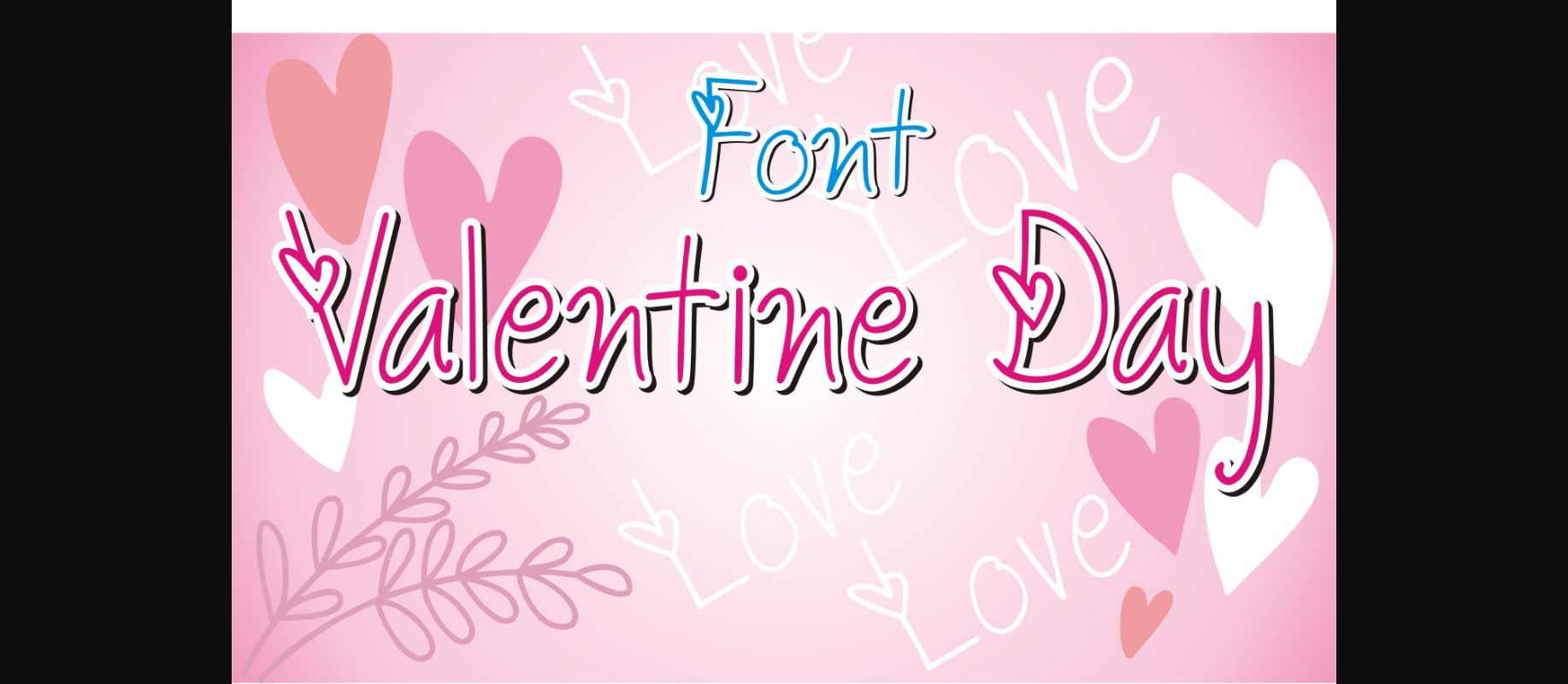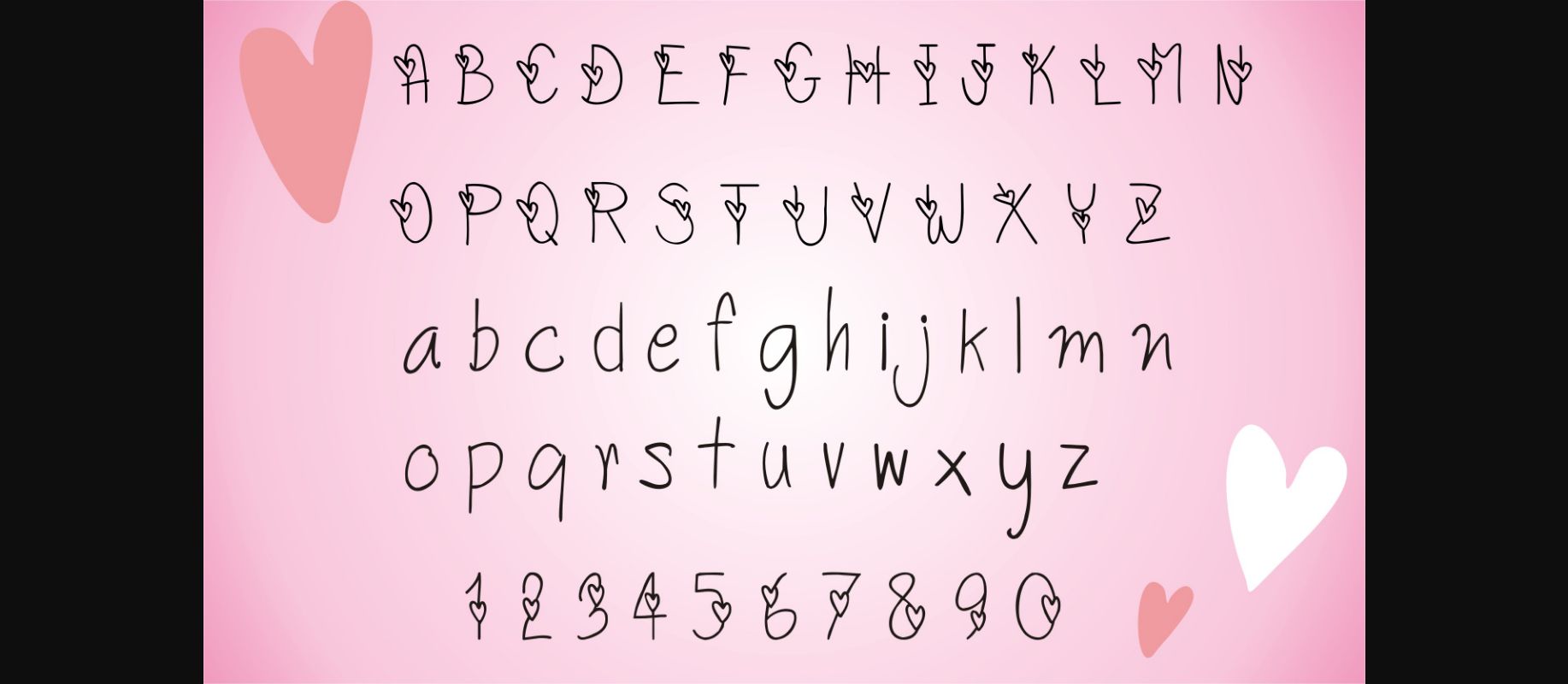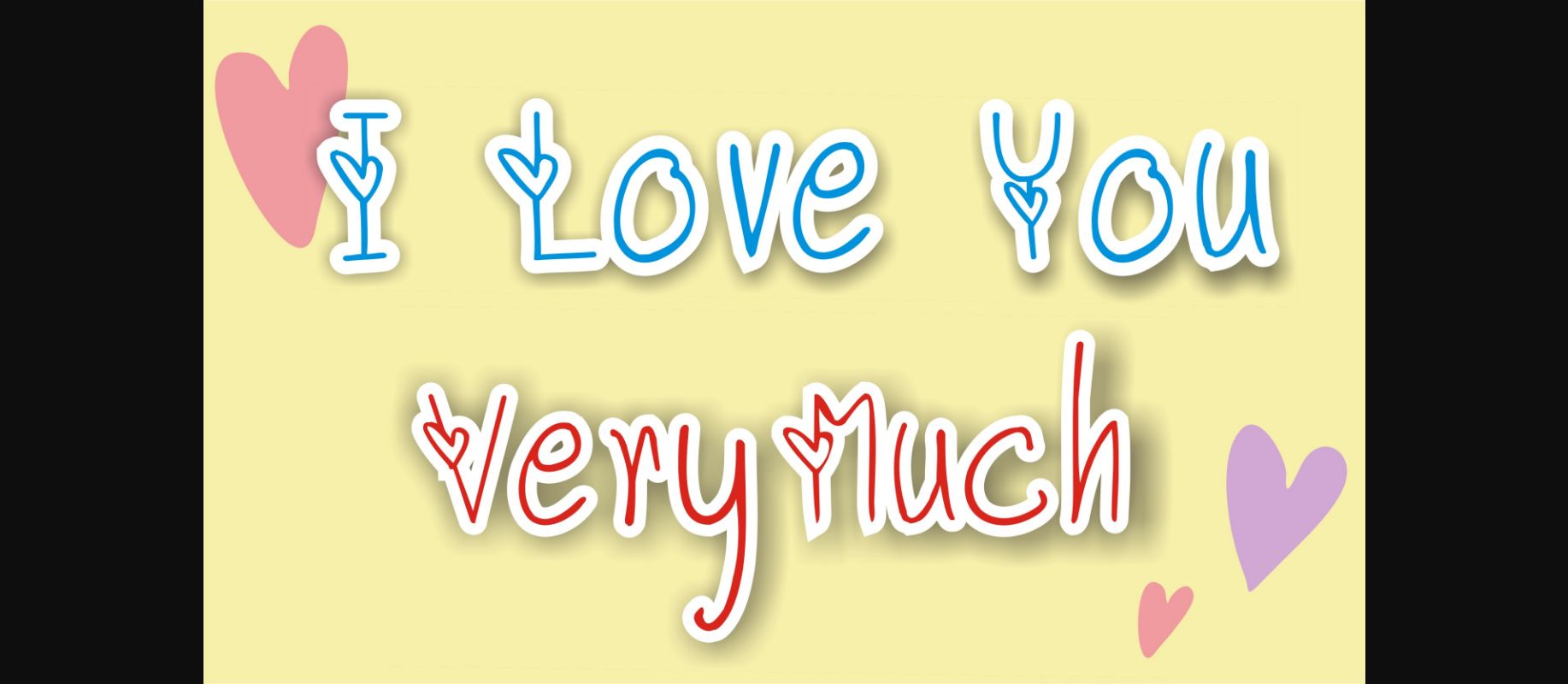
Valentine Day Font
About Valentine Day Font
Valentine Day is a cute decorative font. It is sweet and friendly and it is the ideal choice for creating romantic designs.